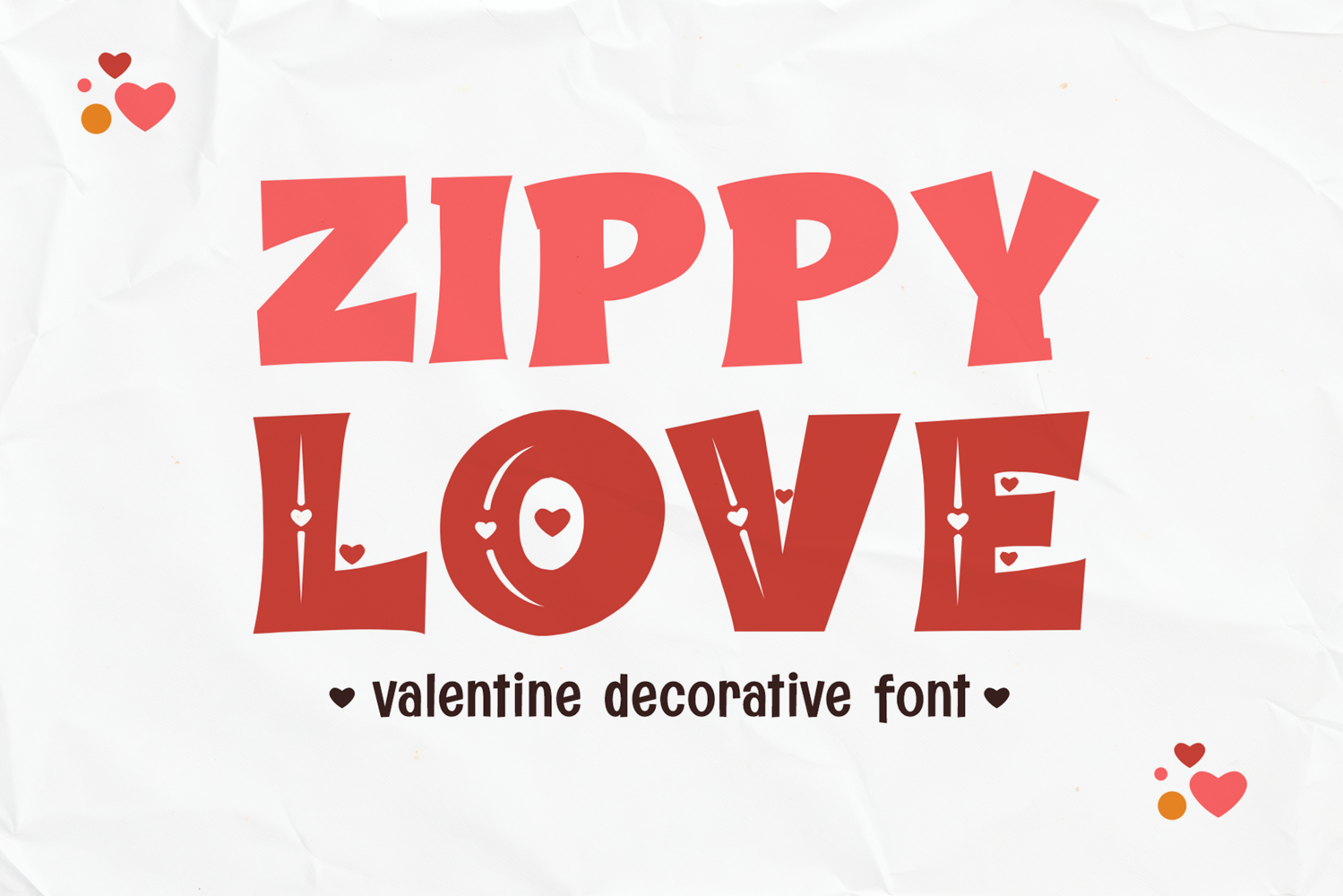
Zippy Love - Playful Valentine Decorative Typeface
Zippy Love is a playful Valentine decorative typeface created to express love, joy, and warmth through bold typography. Featuring two complementary styles—Regular and Decorative—this font allows designers to craft expressive layouts that feel both friendly and romantic. The Regular style delivers clean, rounded letterforms for clarity and balance, while the Decorative style introduces heart-shaped details that enhance emotional storytelling.
Inspired by Valentine cards, retro romance graphics, and cheerful greeting designs, Zippy Love is ideal for weddings, invitations, packaging, stickers, apparel, posters, kids products, and digital content. Its bold proportions ensure strong readability, while its decorative elements add charm without overwhelming the design.
Zippy Love works beautifully across print and digital platforms, making it a reliable choice for seasonal promotions, branding, and lifestyle visuals. Designed to be joyful and expressive, this typeface helps designers communicate affection and positivity through typography.